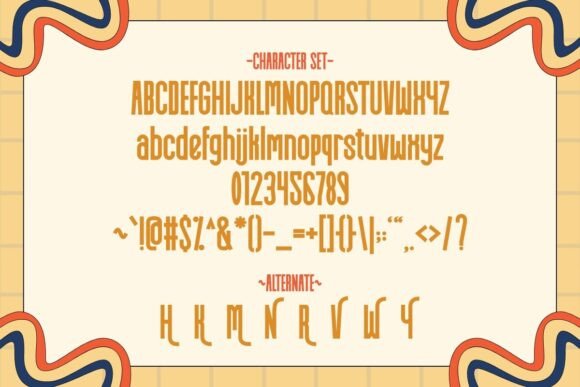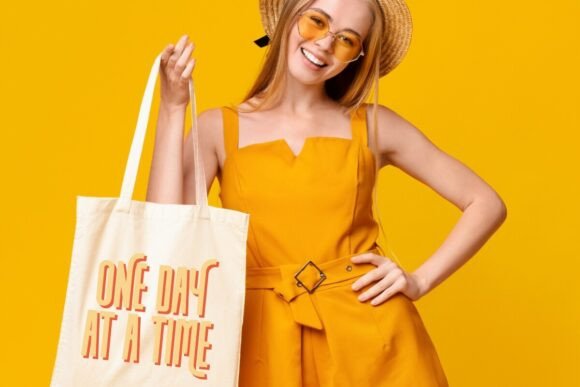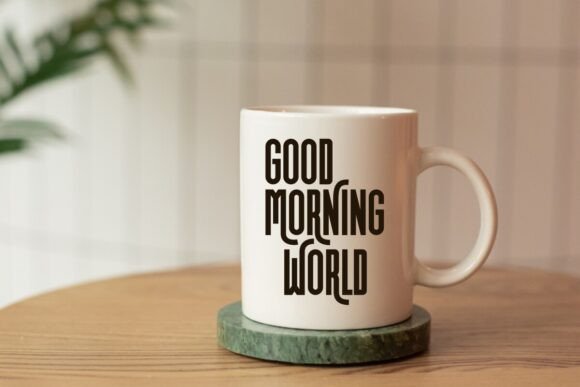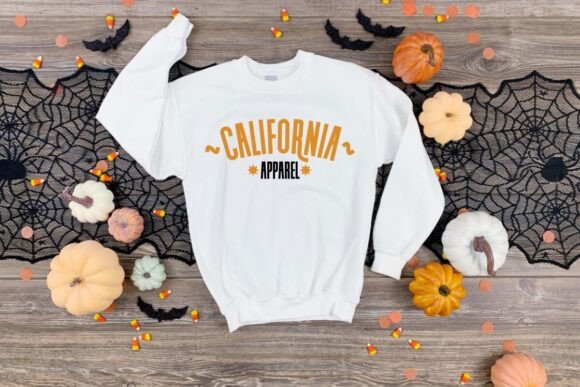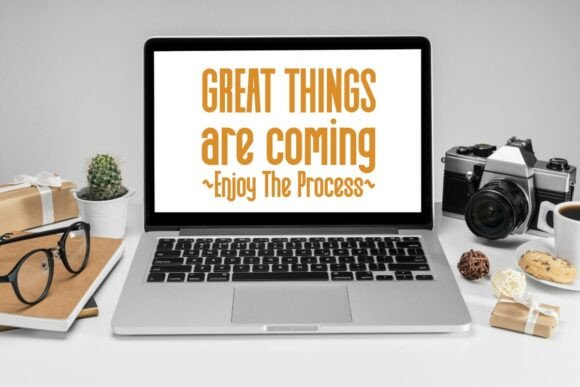
Introducing Dynamic Retro Font: The Perfect Addition to Your Christmas Designs
Are you looking for a font that captures the essence of the holiday season? Do you want to add a touch of nostalgia and cheer to your Christmas designs? Look no further than Dynamic Retro Font, a clean vintage sans serif font that’s perfect for all your Christmas design needs.
What is Dynamic Retro Font?
Dynamic Retro Font is a beautifully crafted font that embodies the classic retro style of the past. Its clean and simple sans serif design makes it highly versatile, allowing you to use it for a wide range of projects. Whether you’re designing for social media, holiday events, or personal projects, this font is sure to add a touch of elegance and sophistication.
Why Choose Dynamic Retro Font for Your Christmas Designs?
There are many reasons why Dynamic Retro Font is the perfect choice for your Christmas designs. Here are just a few:
• Classic Retro Style: Dynamic Retro Font has a timeless quality that evokes the nostalgia of Christmases past. Its classic retro style is sure to transport your audience back to a bygone era, filling them with a sense of warmth and festivity.
• Clean and Simple Design: The clean and simple sans serif design of Dynamic Retro Font makes it highly legible, even at small sizes. This makes it perfect for use on a wide range of materials, from social media graphics to printed materials like Christmas cards and party invitations.
• Highly Versatile: Dynamic Retro Font is an incredibly versatile font that can be used for a wide range of projects. Whether you’re designing festive quotes, apparel mockups, tote bags, mugs, or Christmas cards, this font is sure to add a touch of elegance and sophistication.
Ideas for Using Dynamic Retro Font
Dynamic Retro Font is a highly versatile font that can be used for a wide range of projects. Here are a few ideas to get you started:
• Festive Quotes: Use Dynamic Retro Font to create festive quotes that capture the essence of the holiday season. Share them on social media, or use them in your holiday marketing campaigns.
• Apparel Mockups: Create eye-catching apparel mockups using Dynamic Retro Font. Perfect for designing Christmas-themed t-shirts, hoodies, and more.
• Tote Bags: Add a touch of elegance to your tote bag designs with Dynamic Retro Font. Perfect for creating festive tote bags that make great gifts or promotional items.
• Mugs: Create beautiful mug designs using Dynamic Retro Font. Perfect for designing Christmas-themed mugs that make great gifts or personal items.
• Christmas Cards: Use Dynamic Retro Font to create beautiful Christmas cards that are sure to impress. Perfect for sending to friends, family, or clients.
• Party Invitations: Create festive party invitations using Dynamic Retro Font. Perfect for inviting friends and family to your holiday party.
Tips for Getting the Most Out of Dynamic Retro Font
Here are a few tips for getting the most out of Dynamic Retro Font:
• Experiment with Colors: Dynamic Retro Font looks great in a wide range of colors. Experiment with different colors to find the perfect combination for your design.
• Use it with Other Fonts: Dynamic Retro Font pairs well with other fonts. Try using it with a bold font for added contrast, or with a script font for a more elegant look.
• Pay Attention to Kerning: Make sure to pay attention to kerning when using Dynamic Retro Font. Proper kerning can make a big difference in the overall look of your design.
Font Name Dynamic Retro Font
Author SiapGraph
Dynamic Retro Font is a beautiful and versatile font that’s perfect for all your Christmas design needs. With its classic retro style, clean and simple design, and high level of versatility, this font is sure to add a touch of elegance and sophistication to any project. Whether you’re designing for social media, holiday events, or personal projects, Dynamic Retro Font is the perfect choice. So why wait? Download Dynamic Retro Font today and start creating stunning Christmas designs that will leave a lasting impression on your audience.